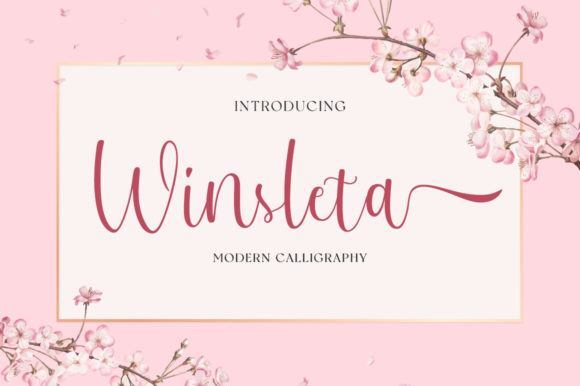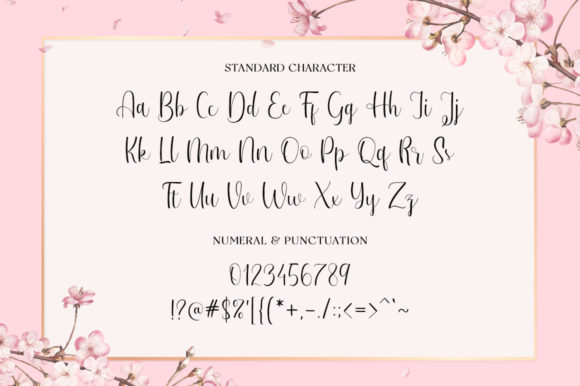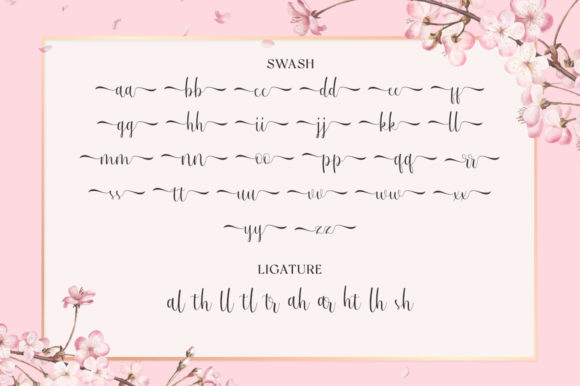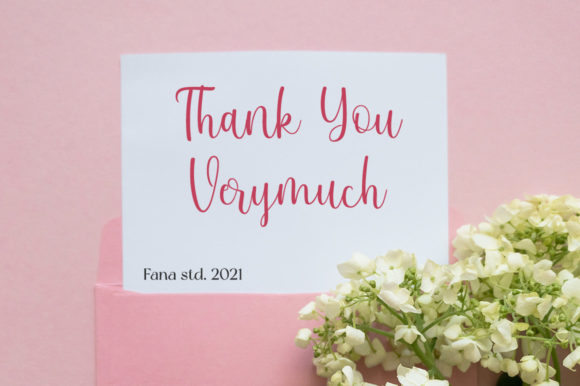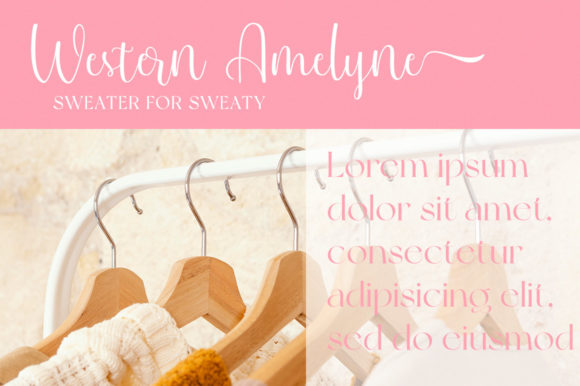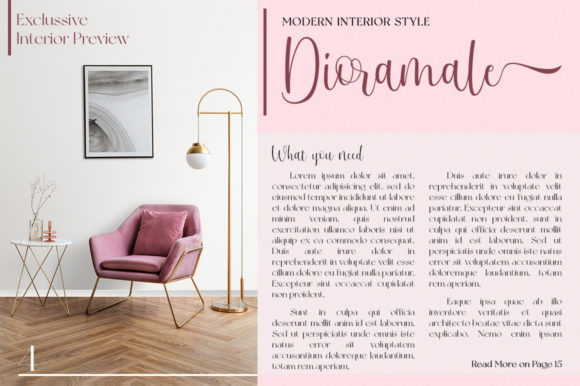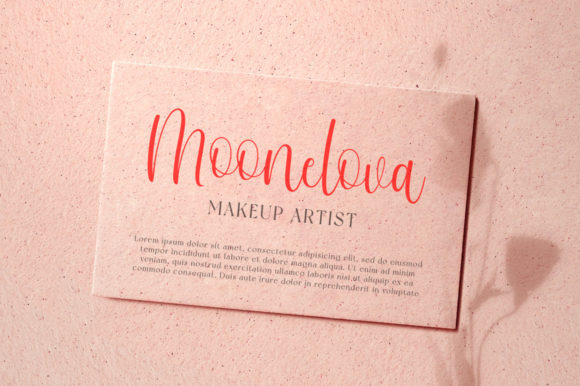
Winsleta Font
About Winsleta Font
Winsleta is an enchanting handwritten font. This versatile script font has a wide spectrum of applications ranging from greeting cards to headlines. Winsleta is PUA encoded which means you can access all glyphs and swashes with ease!